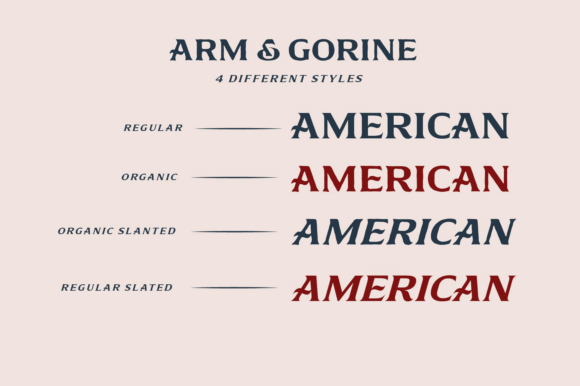
Introducing Arm & Gorine Font: Elevate Your Design with Timeless Elegance
Are you searching for a typeface that embodies classic sophistication and organic charm? Look no further than the Arm & Gorine font. This vintage display serif is specifically designed to bring an air of elegance and authenticity to your creative projects. Whether you’re working on branding, logos, editorial headlines, or social media graphics, Arm & Gorine is the perfect choice for those seeking a touch of timeless charm.
A Typeface with a Natural, Organic Feel
Arm & Gorine is more than just a font – it’s an experience. With its natural, organic feel, this typeface instantly evokes a sense of nostalgia and sophistication. The Regular style offers clean, vintage-inspired letterforms that are perfect for creating a sense of luxury and refinement. On the other hand, the Organic style adds a handcrafted, earthy twist, giving your designs a unique and personalized touch.
Three Styles to Suit Your Design Needs
Arm & Gorine offers three distinct styles to cater to your design requirements: Regular, Organic, and Slant. Each style has its unique characteristics, allowing you to experiment and find the perfect fit for your project.
Regular Style: Clean and Vintage-Inspired
The Regular style of Arm & Gorine delivers clean, vintage-inspired letterforms that exude classic elegance. This style is perfect for designs that require a sense of sophistication and refinement, such as luxury branding, high-end editorial content, and elegant social media graphics.
Organic Style: Handcrafted and Earthy
For those seeking a more rustic and personalized approach, the Organic style of Arm & Gorine adds a handcrafted, earthy twist to your designs. This style is ideal for projects that require a unique and authentic feel, such as artisanal branding, handmade product labels, and bespoke editorial content.
Slant Style: Dynamic and Expressive
If you’re looking to add a touch of movement and energy to your typography, the Slant style of Arm & Gorine is the perfect choice. This style introduces subtle movement to your words, creating a sense of flow and dynamism that’s perfect for attention-grabbing headlines, bold logos, and engaging social media graphics.
Perfect for a Variety of Design Applications
Arm & Gorine is a versatile typeface that can be used in a wide range of design applications. Here are some of the ways you can use this beautiful font:
- Sophisticated Branding: Use Arm & Gorine to create elegant and refined brand identities that exude luxury and sophistication.
- Striking Logos: Create eye-catching logos that make a lasting impression with the unique and expressive letterforms of Arm & Gorine.
- Editorial Headlines: Add a touch of classic elegance to your editorial content with Arm & Gorine’s clean and vintage-inspired letterforms.
- Social Media Graphics: Elevate your social media graphics with Arm & Gorine’s timeless charm and sophistication.
Why Choose Arm & Gorine Font?
With so many typefaces available, why choose Arm & Gorine? Here are just a few reasons why this font stands out:
- Unique and Expressive: Arm & Gorine offers a unique and expressive way to communicate your message, setting you apart from the competition.
- Timeless Charm: This typeface has a timeless charm that never goes out of style, ensuring your designs remain relevant for years to come.
- Versatile: Arm & Gorine can be used in a wide range of design applications, making it a valuable addition to your font library.
- Elegant and Refined: This typeface exudes elegance and refinement, perfect for designs that require a sense of luxury and sophistication.
In conclusion, Arm & Gorine is a beautiful and versatile typeface that’s perfect for designers seeking to add a touch of classic elegance and organic charm to their creative projects. With its natural, organic feel and three distinct styles, this font offers a unique and expressive way to communicate your message. Whether you’re working on branding, logos, editorial headlines, or social media graphics, Arm & Gorine is the perfect choice for those seeking a timeless and sophisticated typeface.